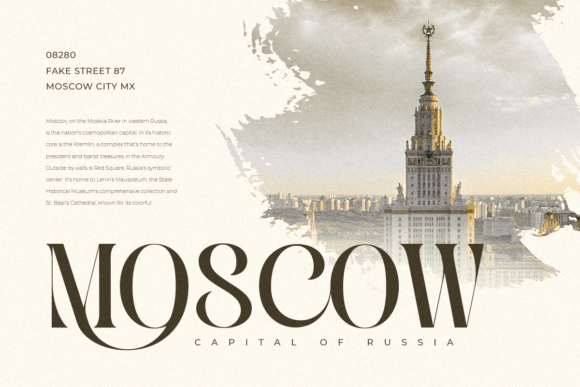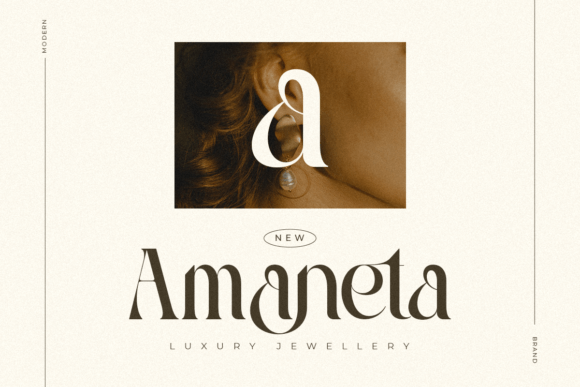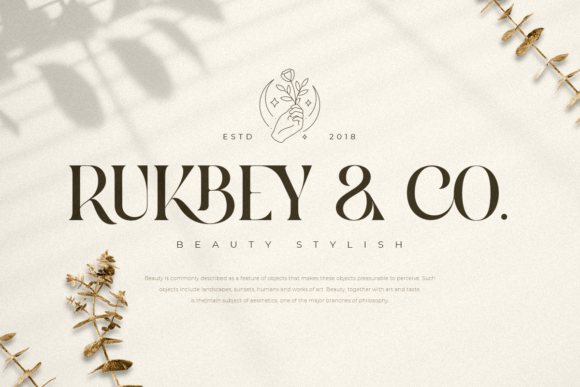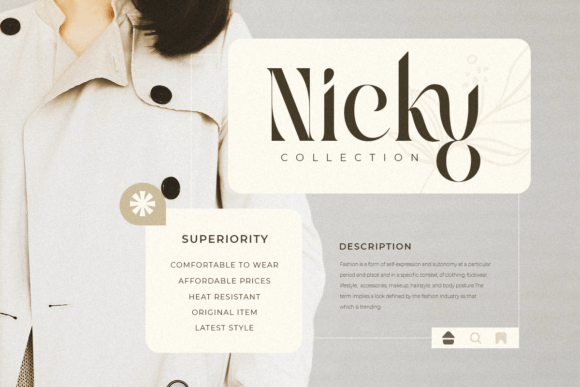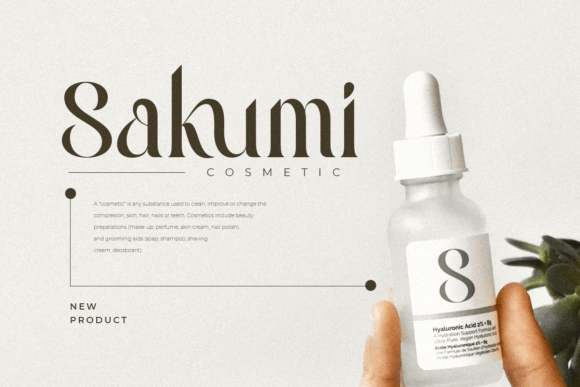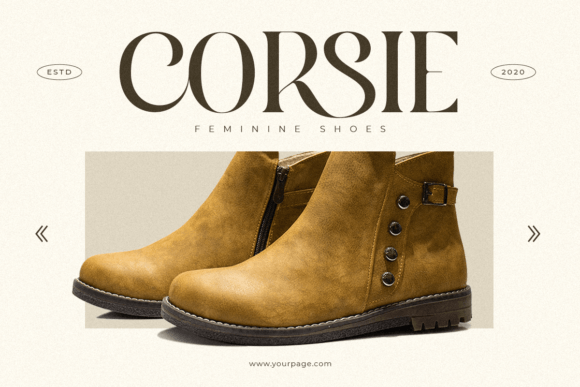
Introducing Harmonis Font: Elevate Your Designs with Elegance and Sophistication
In the world of typography, a font can make or break a design. For designers and crafters seeking to add a touch of elegance and sophistication to their work, Harmonis Font is an exceptional choice. This stylish and incredibly elegant serif font is designed to bring a handwritten touch to various designs, making it perfect for wedding invitations, thank you cards, quotes, greeting cards, logos, business cards, and more.
The Characteristics of Harmonis Font
Harmonis Font boasts a range of characteristics that set it apart from other serif fonts. Its elegant and refined lines make it an ideal choice for designs that require a touch of sophistication. The font features:
- Classic Serif Style: Harmonis Font’s classic serif style gives it a timeless and traditional look, making it perfect for designs that require a sense of heritage and elegance.
- Elegant Lines: The font’s elegant lines and curves make it perfect for adding a touch of sophistication to any design.
- Handwritten Touch: Despite being a serif font, Harmonis Font has a handwritten touch that makes it perfect for designs that require a personal and intimate feel.
Uses of Harmonis Font
Harmonis Font is an incredibly versatile font that can be used in a wide range of designs. Some of the most popular uses of the font include:
- Wedding Invitations: The font’s elegant and refined lines make it perfect for wedding invitations, adding a touch of sophistication and romance to the design.
- Thank You Cards: Harmonis Font is also ideal for thank you cards, allowing you to express your gratitude in a stylish and elegant way.
- Quotes and Greeting Cards: The font’s classic serif style and elegant lines make it perfect for quotes and greeting cards, adding a touch of sophistication and elegance to the design.
- Logos and Business Cards: Harmonis Font can also be used to create stunning logos and business cards, giving your brand a sense of elegance and sophistication.
Benefits of Using Harmonis Font
There are several benefits to using Harmonis Font in your designs. Some of the most significant advantages include:
- Elegance and Sophistication: The font’s elegant and refined lines add a touch of sophistication and elegance to any design.
- Versatility: Harmonis Font is incredibly versatile, making it perfect for a wide range of designs, from wedding invitations to logos and business cards.
Tips for Using Harmonis Font
To get the most out of Harmonis Font, here are a few tips to keep in mind:
- Use it with a Clear Background: To make the most of the font’s elegant lines, use it with a clear background that allows the text to stand out.
- Experiment with Different Sizes: Harmonis Font looks stunning in a range of sizes, so don’t be afraid to experiment to find the perfect size for your design.
- Pair it with Other Fonts: The font pairs well with other fonts, so feel free to experiment with different combinations to create a unique look.
In conclusion, Harmonis Font is an exceptional choice for designers and crafters seeking to add a touch of elegance and sophistication to their work. With its classic serif style, elegant lines, and handwritten touch, this font is perfect for a wide range of designs, from wedding invitations to logos and business cards. By following the tips outlined above, you can make the most of Harmonis Font and create stunning designs that are sure to impress.